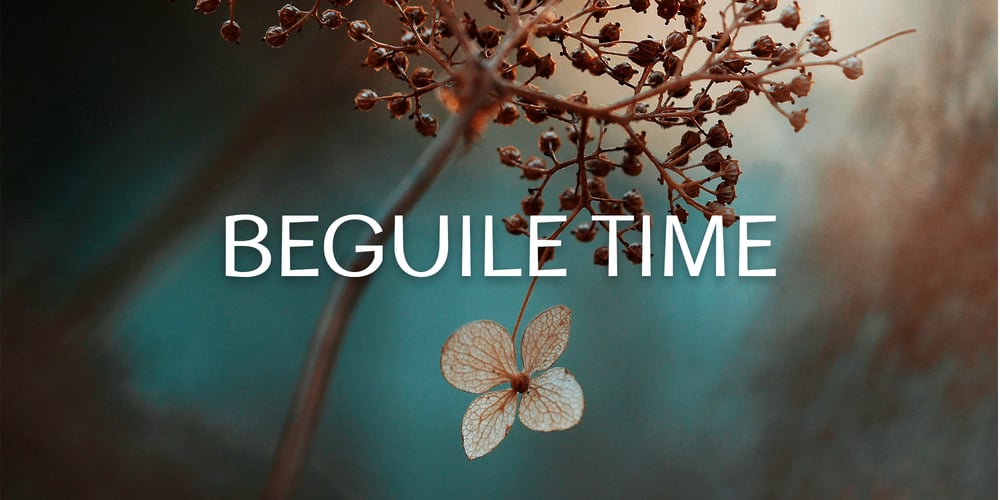
Beguile Time Font Family was designed by Zuhayr Zunayra and published by ZorkSlide. Beguile Time contains 6 styles and family package options. Beguile Time, sans-serif font with over 1000 glyphs, supporting multilingual. Clean and professional design, perfect for print books and various creative projects. High quality and diverse characters ensure flexibility and clarity at all text sizes.